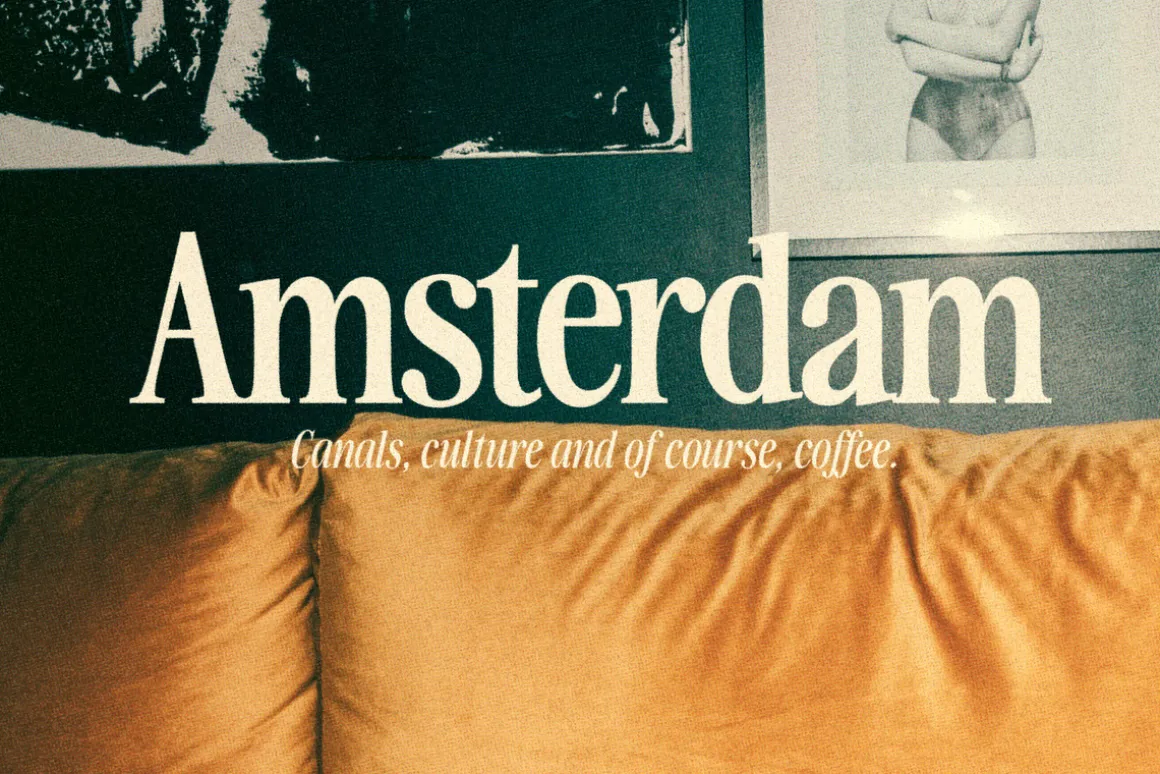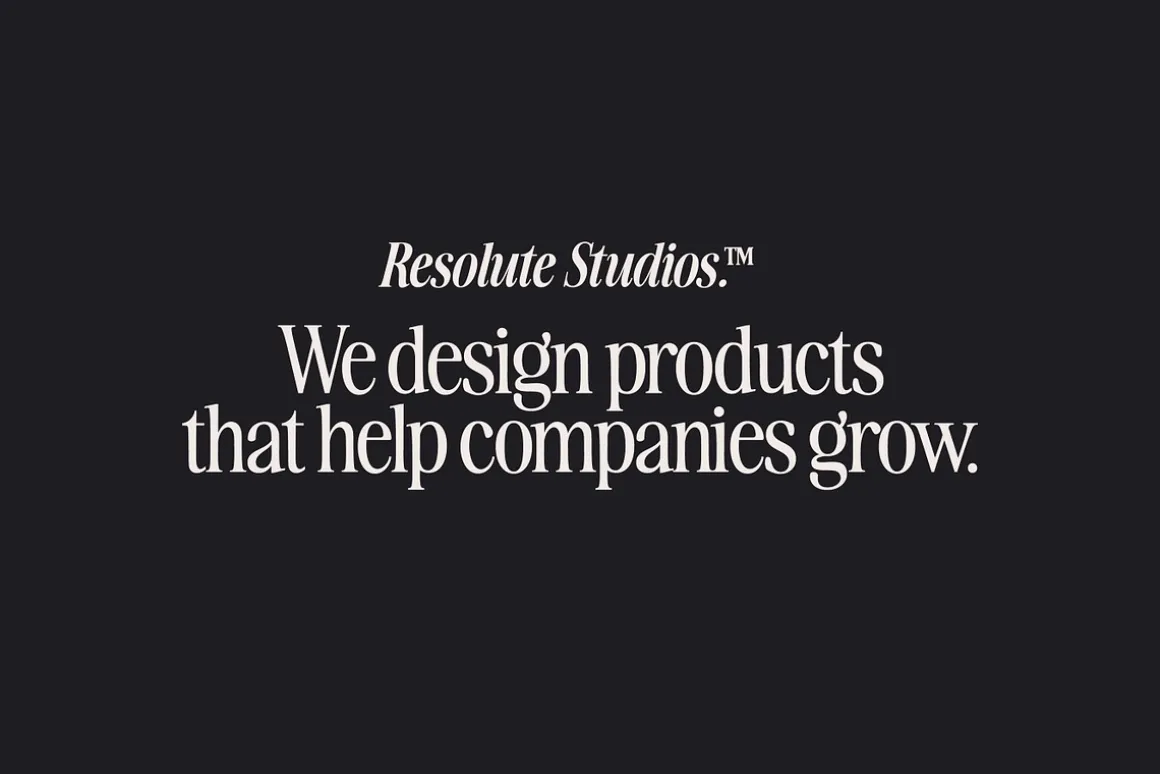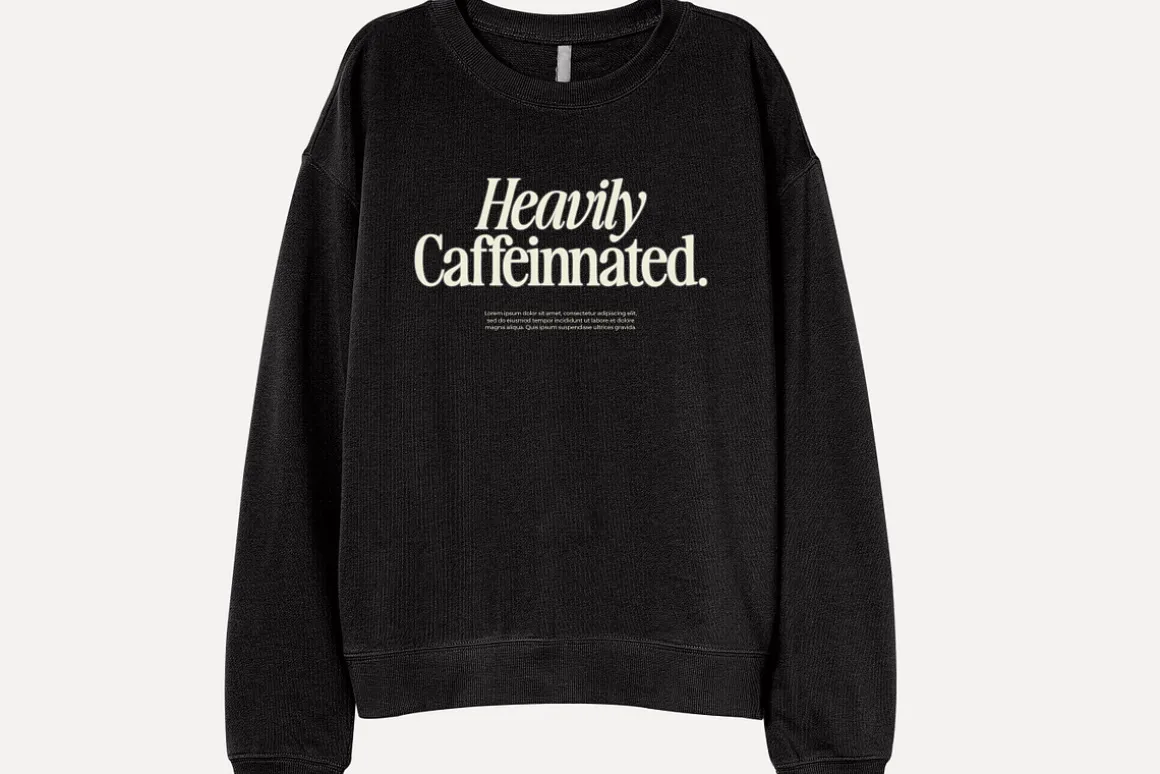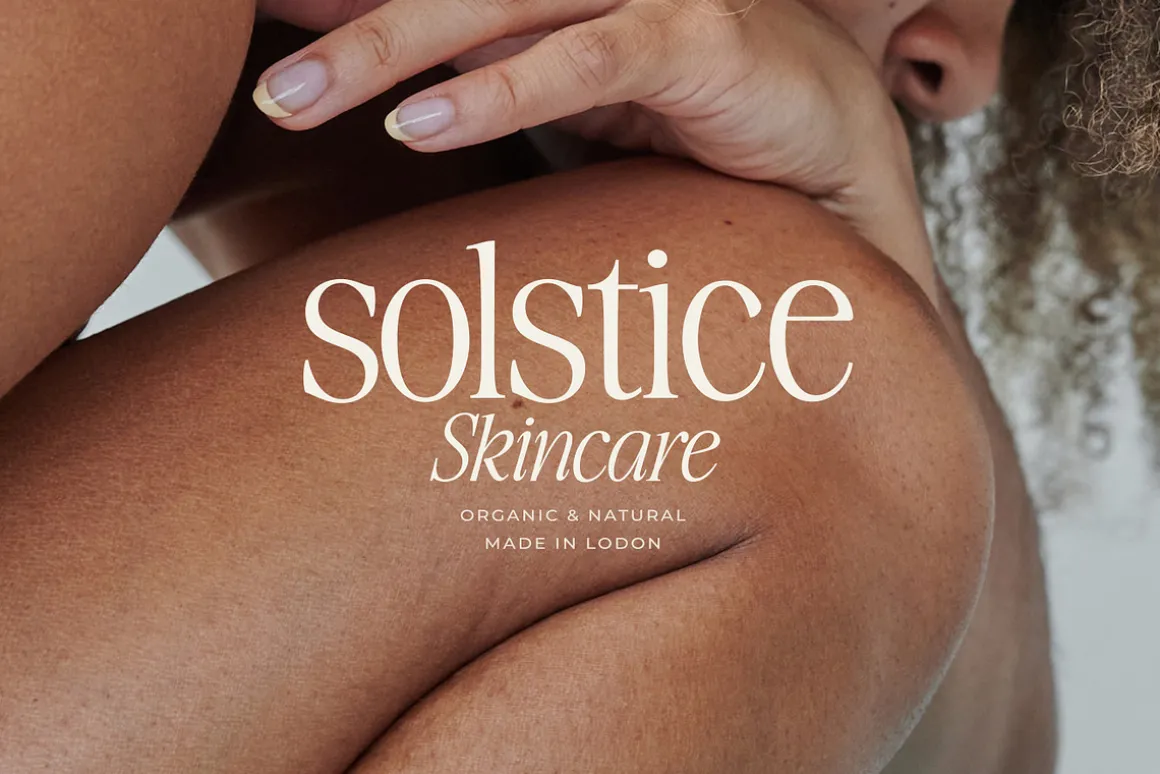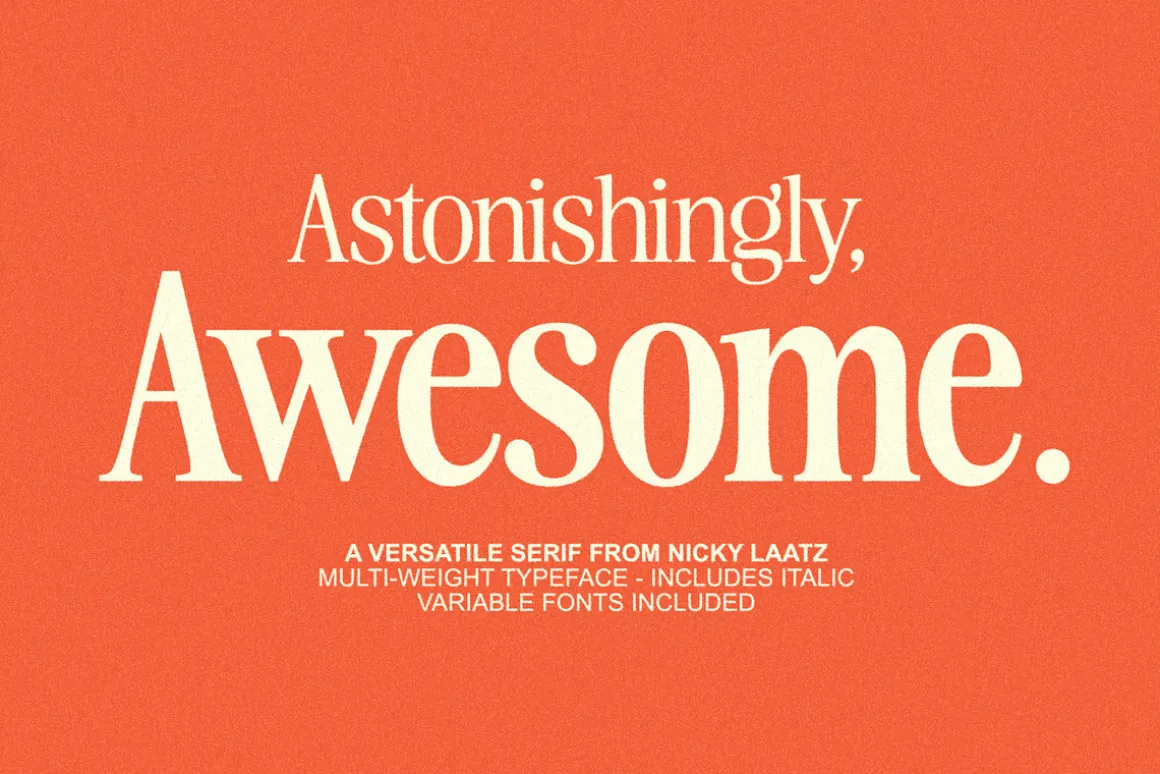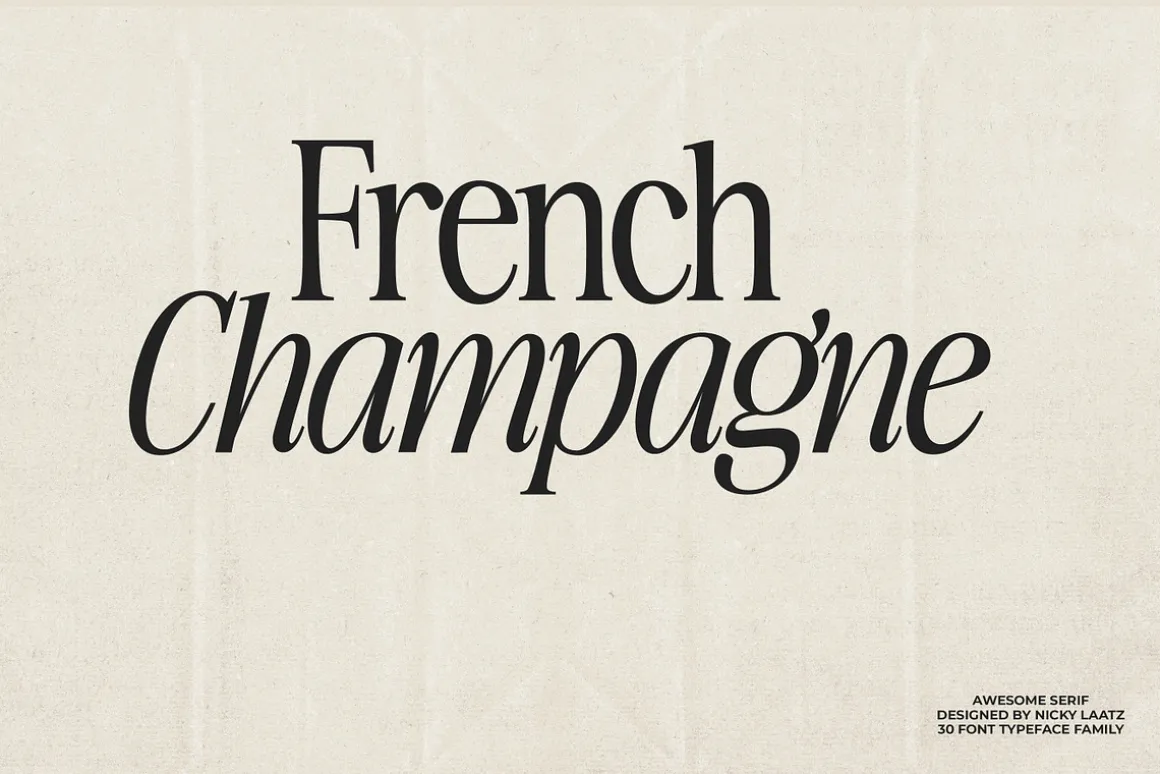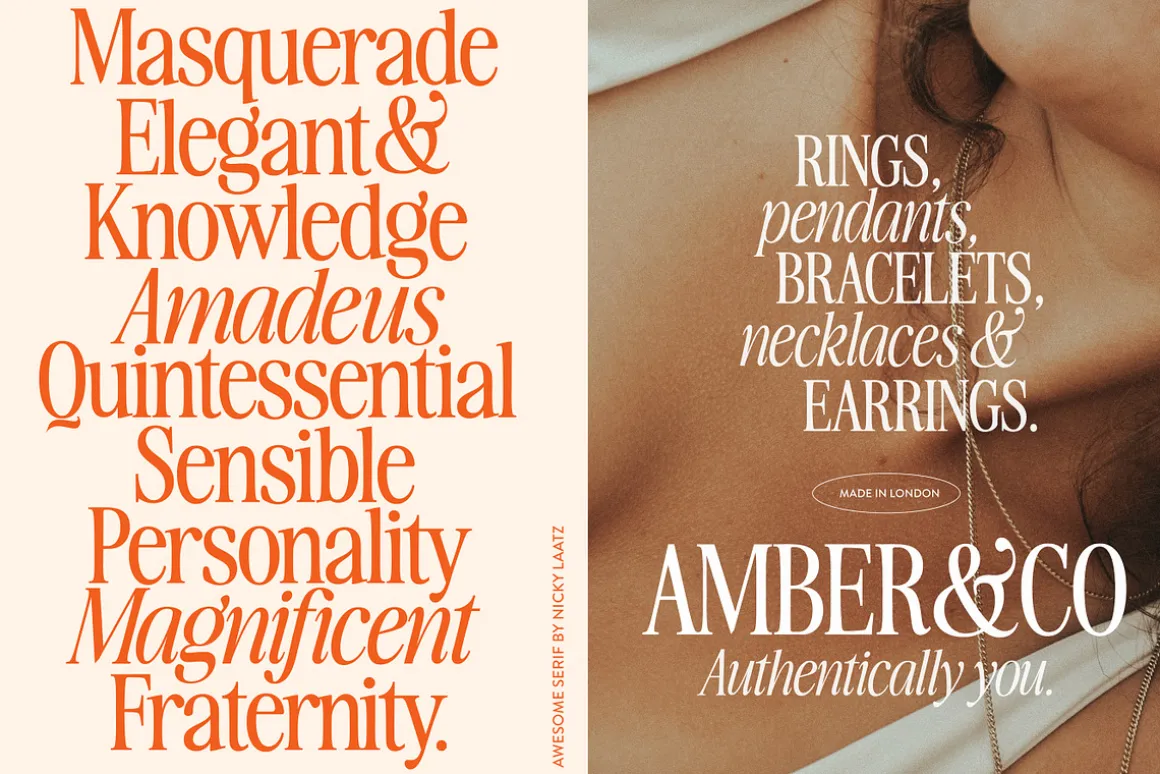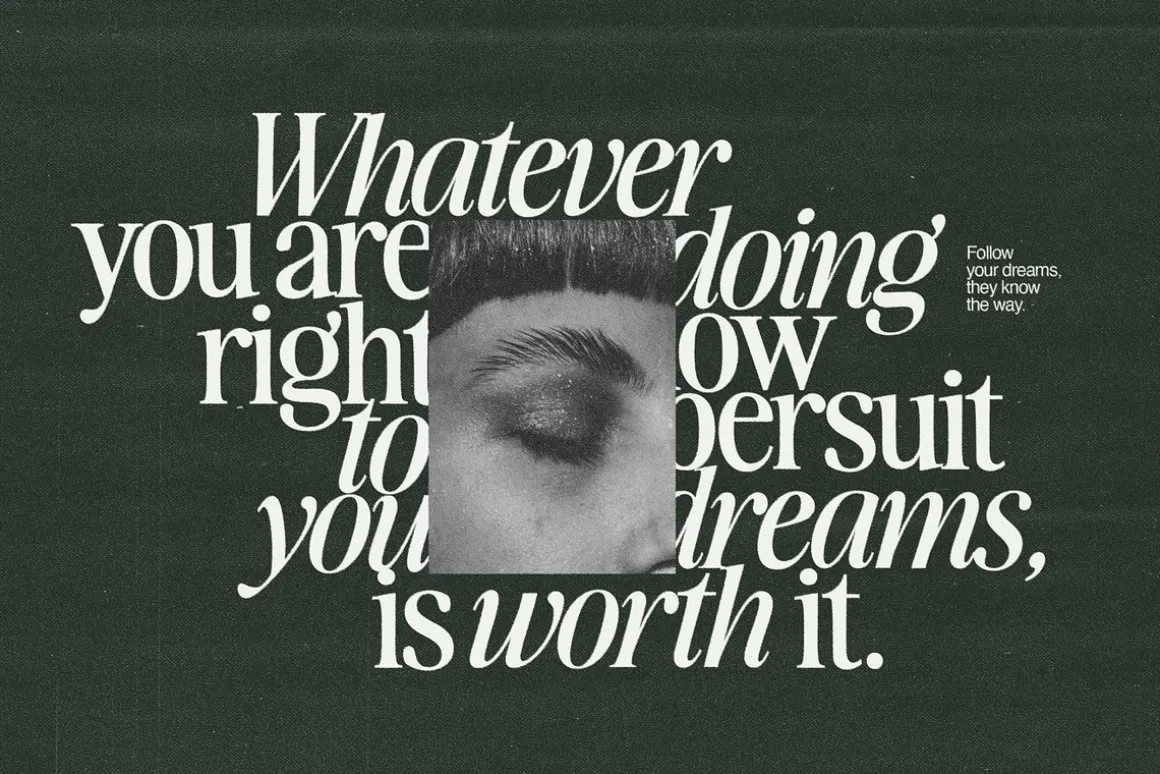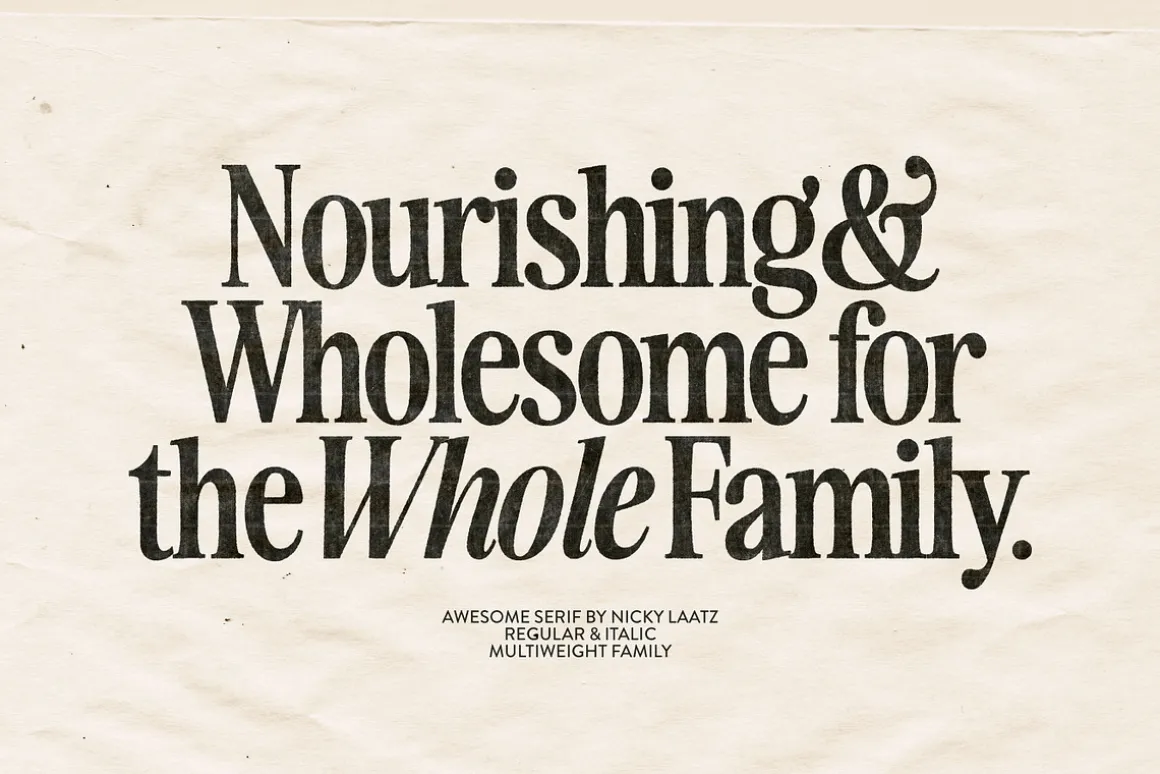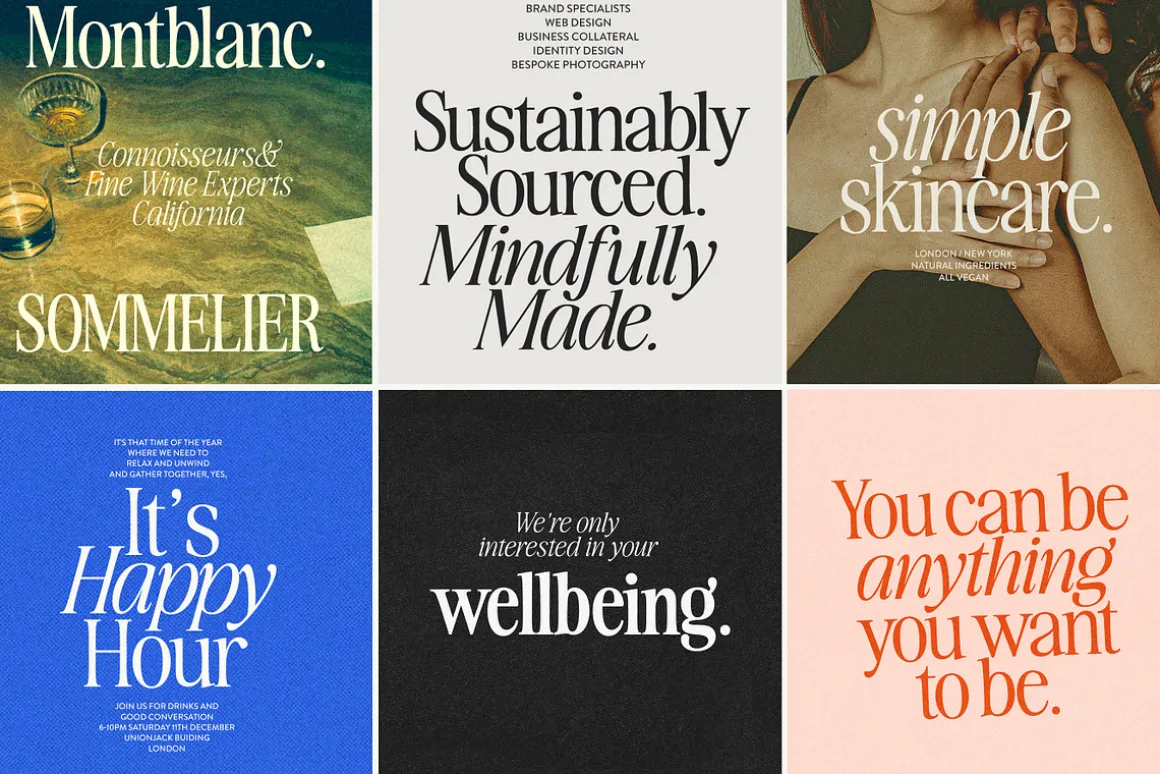
Say hello to Awesome Serif 🙂 A stylish, dreamy multi-weight , multi height type family – In both Regular and Italic styles – 30 fonts in total. Two handy variable fonts are included if you have software that can read variable fonts.
Awesome Serif is stylish, but with a retro edge. It’s was created to be super versatile – it can morph into delicate sophisticated projects – or bold edgy retro designs. Take your pick 🙂 Use the Type tester below to type out your text and take it for a spin!